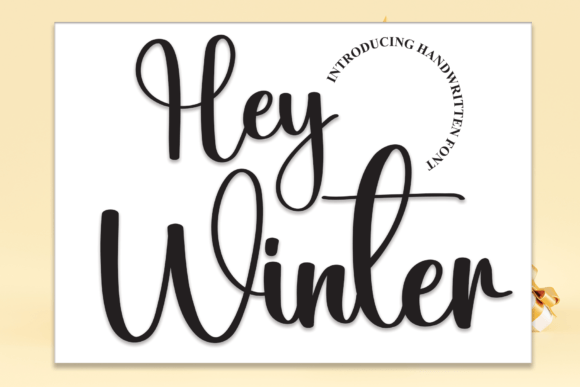
Step into a world of elegance and charm with Hey Winter Font, a captivating script font that will transport your designs to new heights. This exquisite handwritten font, meticulously crafted by andikastudio, embodies the spirit of modern calligraphy, seamlessly blending classic grace with a refreshing touch of contemporary flair.
Immerse yourself in the beauty of Hey Winter's intricate swirls and delicate curves, carefully designed to evoke a sense of timeless sophistication. Each letter dances across the page, carrying with it an air of artistry and refinement. Whether you're crafting wedding invitations, heartfelt love letters, or elegant branding materials, Hey Winter will infuse your words with an undeniable charm.
Feel the warmth of Hey Winter's embrace as it adds a touch of personality and playfulness to your projects. Its versatile nature makes it an ideal choice for a wide range of applications, from social media posts and website designs to posters and packaging. Let Hey Winter be your creative companion, guiding you towards design excellence.
Indulge in the limitless possibilities that Hey Winter presents. Its compatibility with various software and platforms ensures effortless integration into your design workflow. Experience the joy of seamless creativity as you witness Hey Winter transform your words into works of art.
Elevate your designs to new heights with Hey Winter Font. Its captivating beauty and versatility will leave a lasting impression on your audience. Embrace the art of expression and let Hey Winter be your guiding light towards design brilliance.